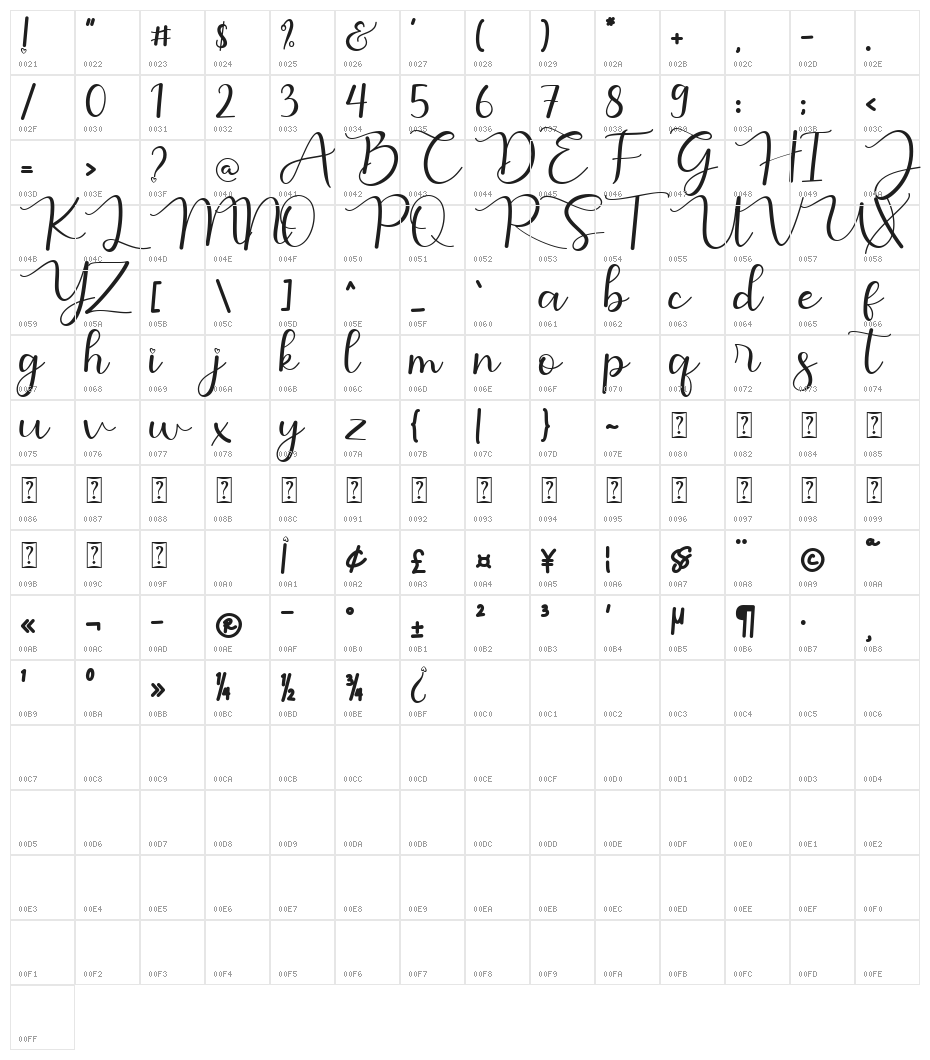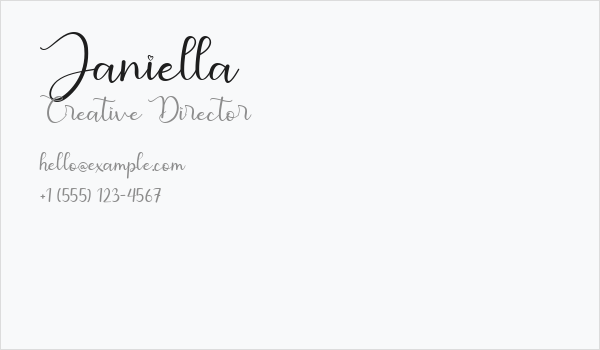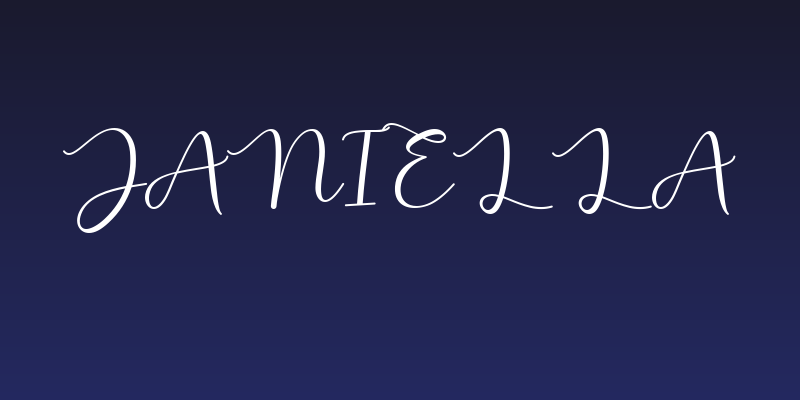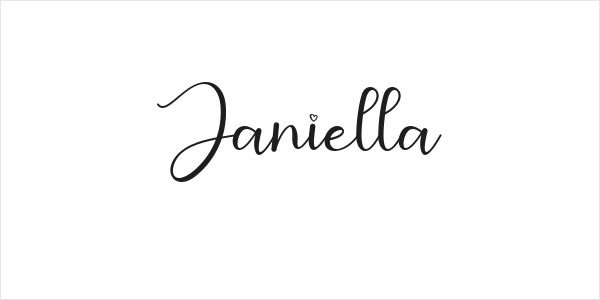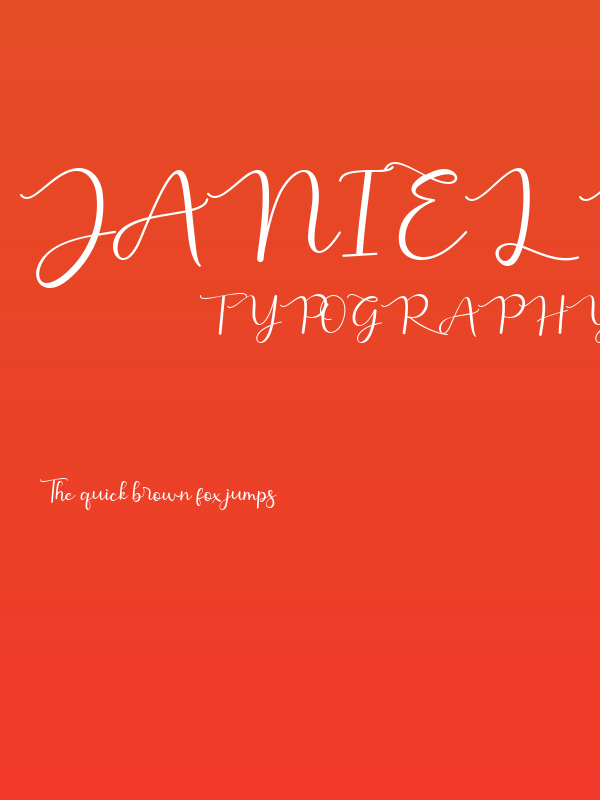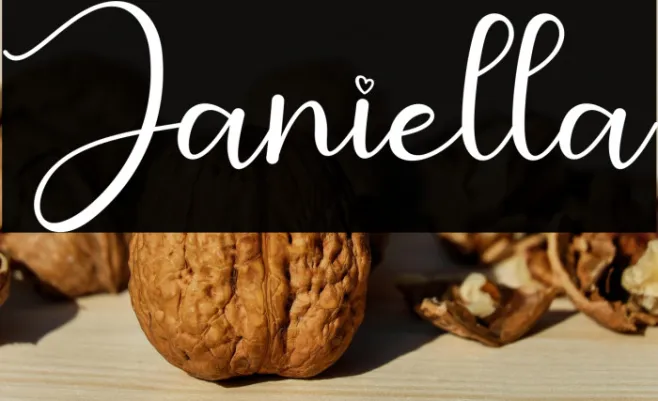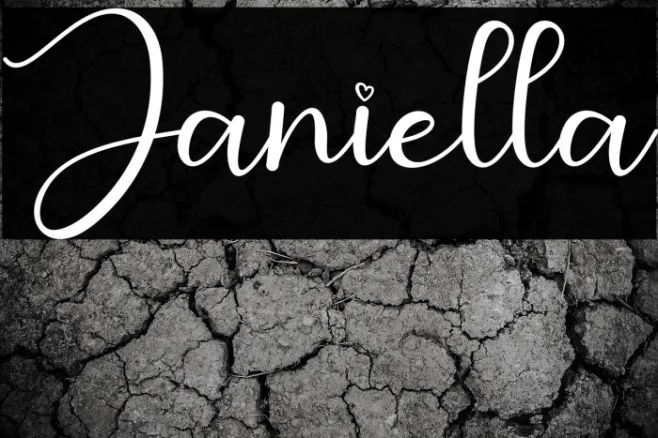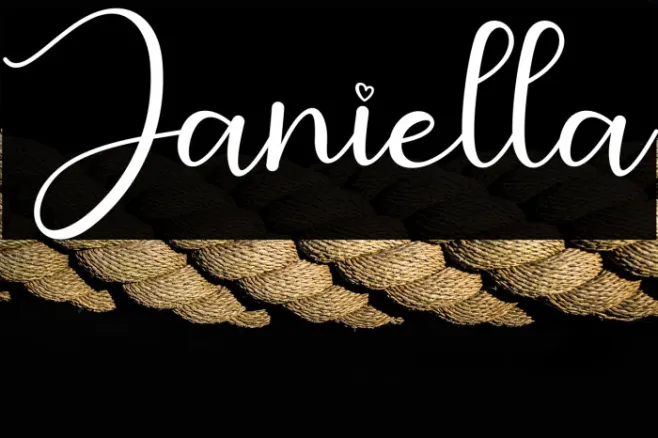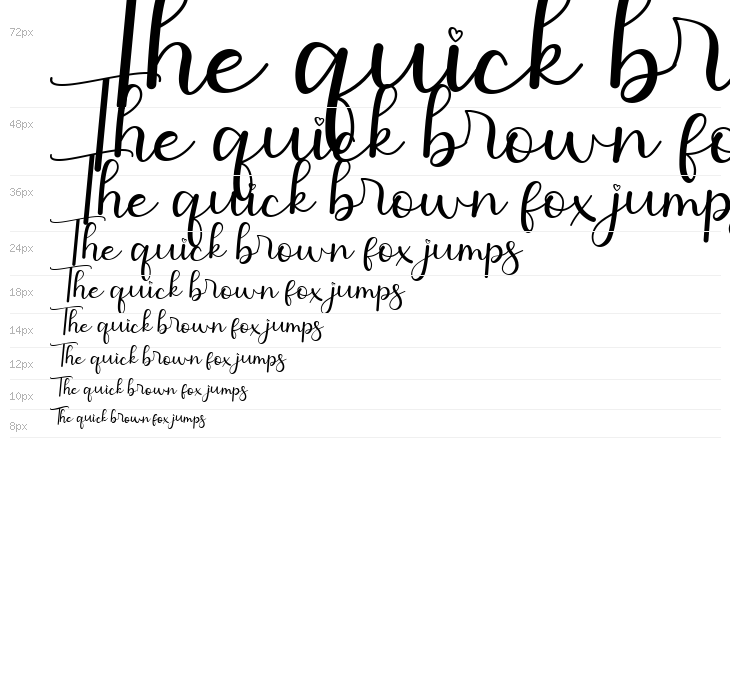
Janiella Font
Janiella Description
This font features a playful and elegant script style with a handwritten touch. The uppercase letters are characterized by their flowing, connected strokes, giving a sense of movement and fluidity. The lowercase letters maintain a consistent style, with some letters featuring charming loops and curls that add to the font's whimsical nature. The numerals are clear and legible, with a slight slant that complements the overall design. Special characters are creatively designed, maintaining the font's cohesive look. This font is perfect for projects that require a personal, friendly, and artistic touch.